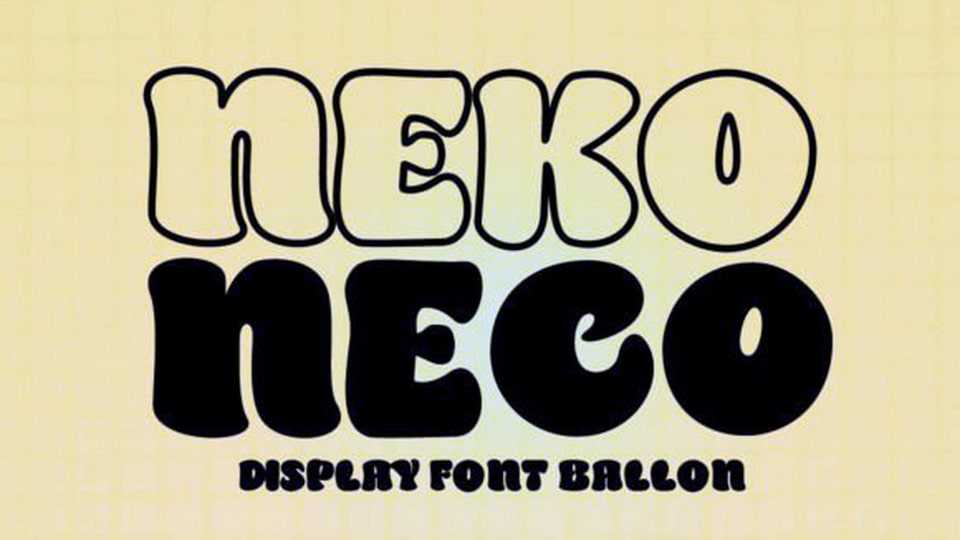
Download Neko Neco font, a cute and naturally styled comic balloon display typeface suitable for logos, branding, greetings, social media themes, and birthday invitation designs.